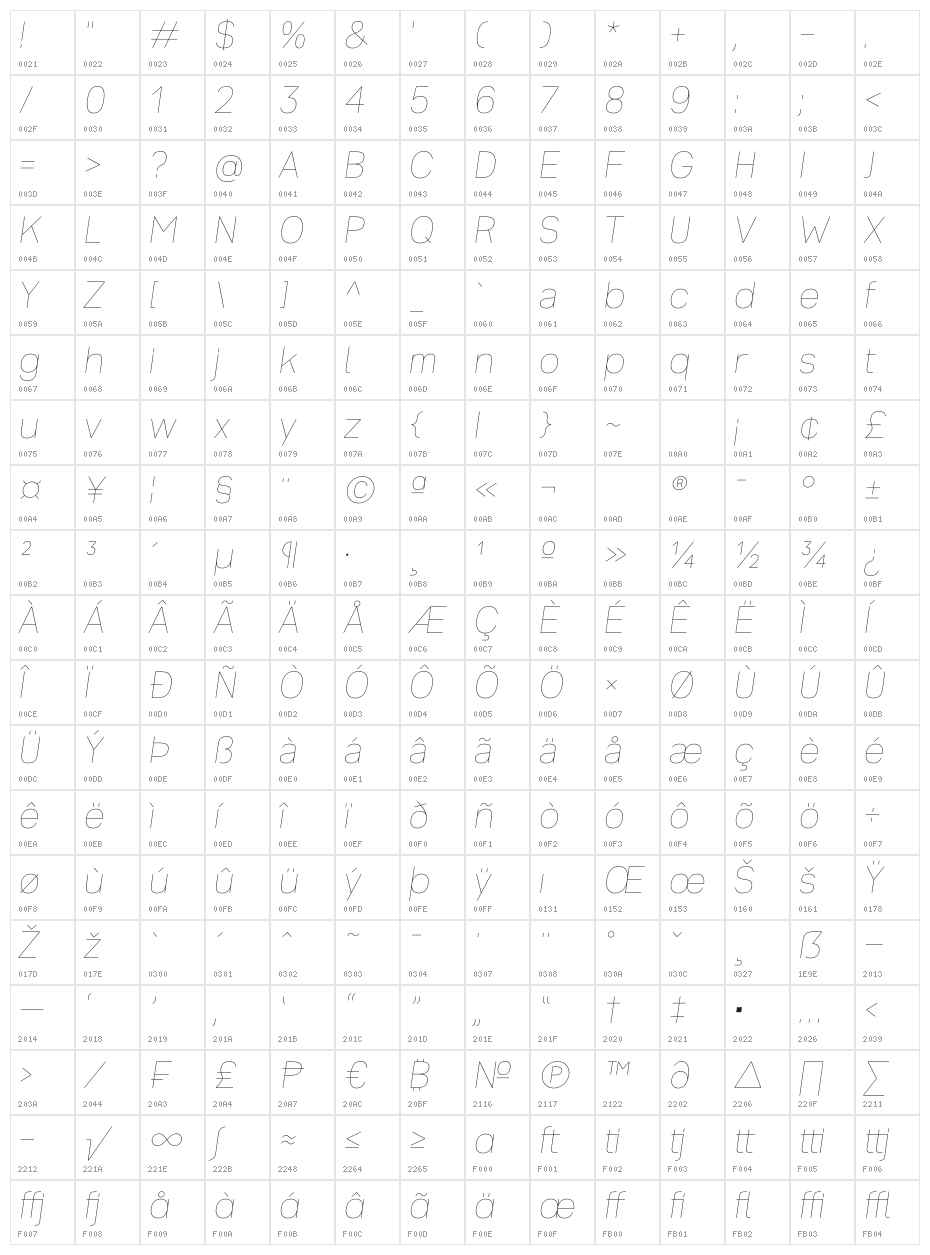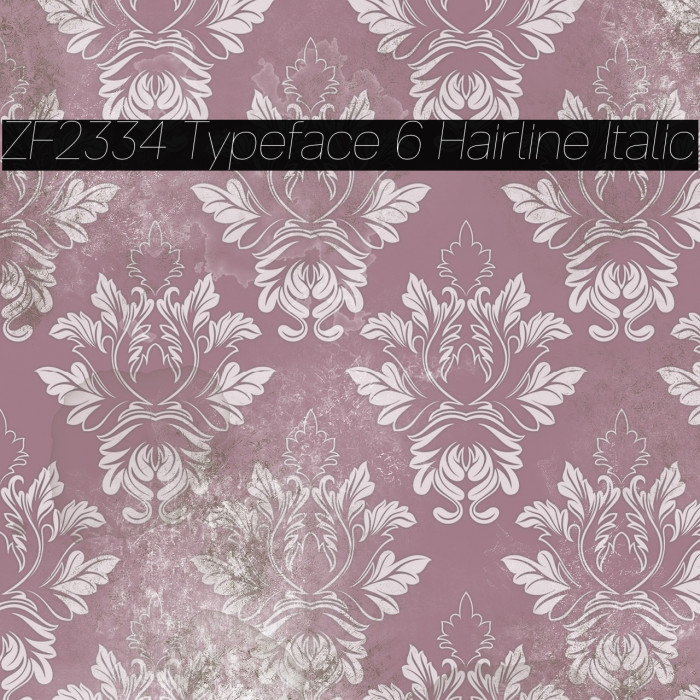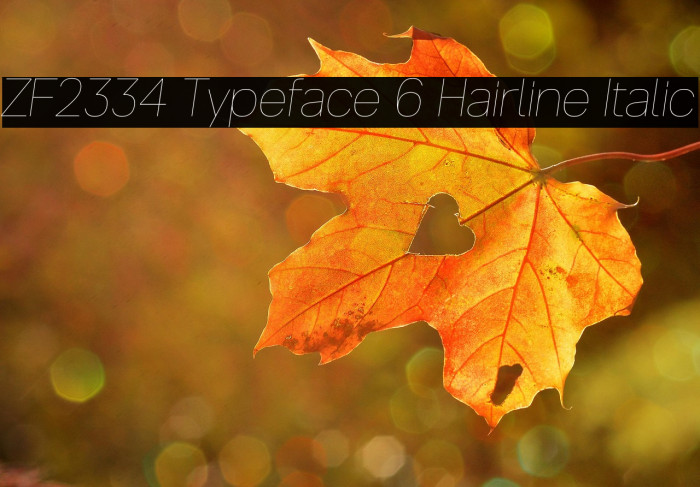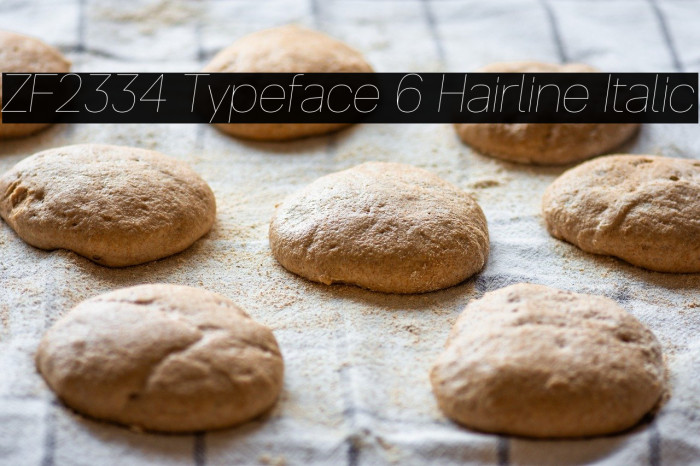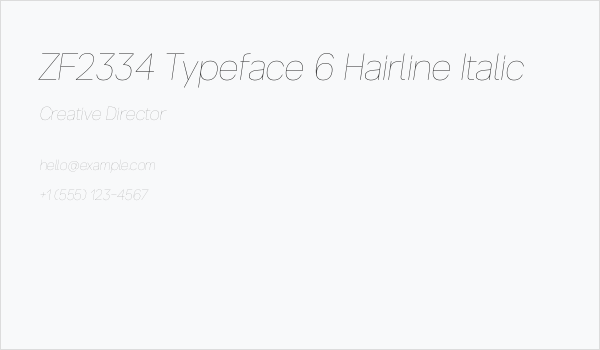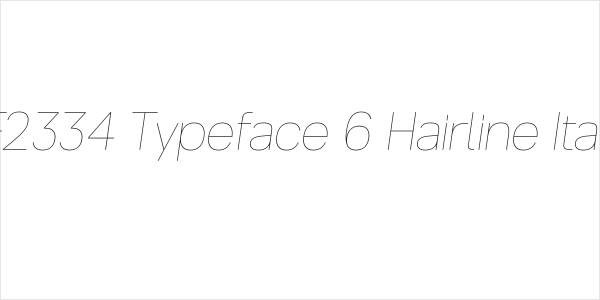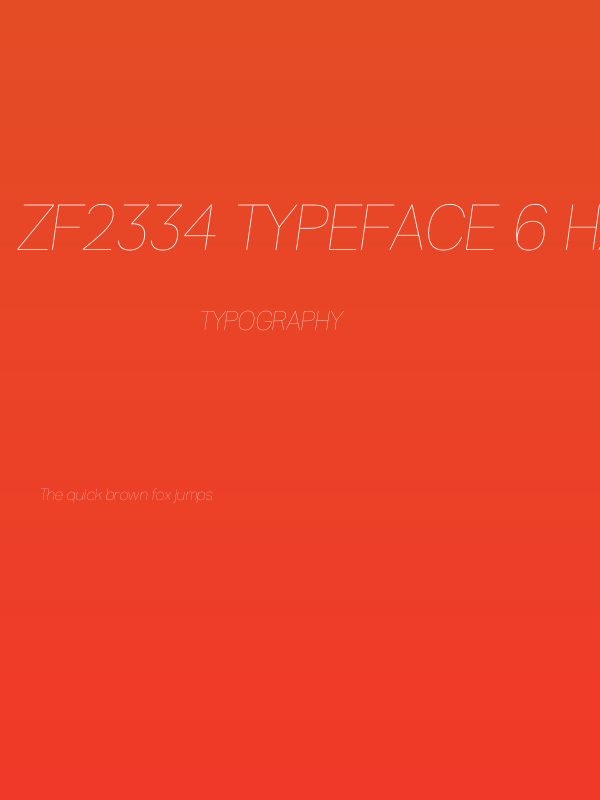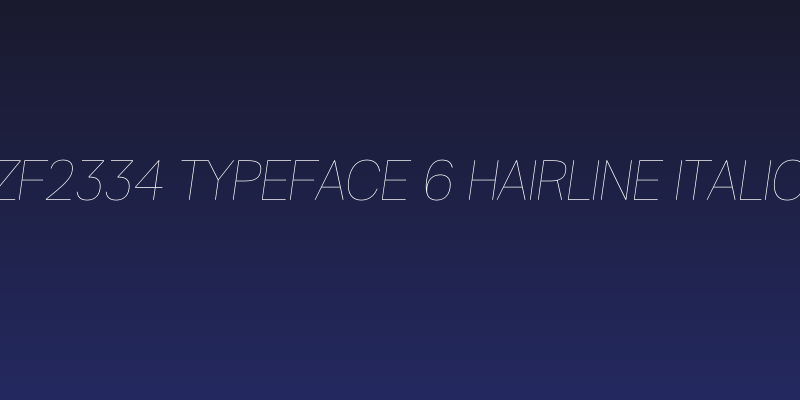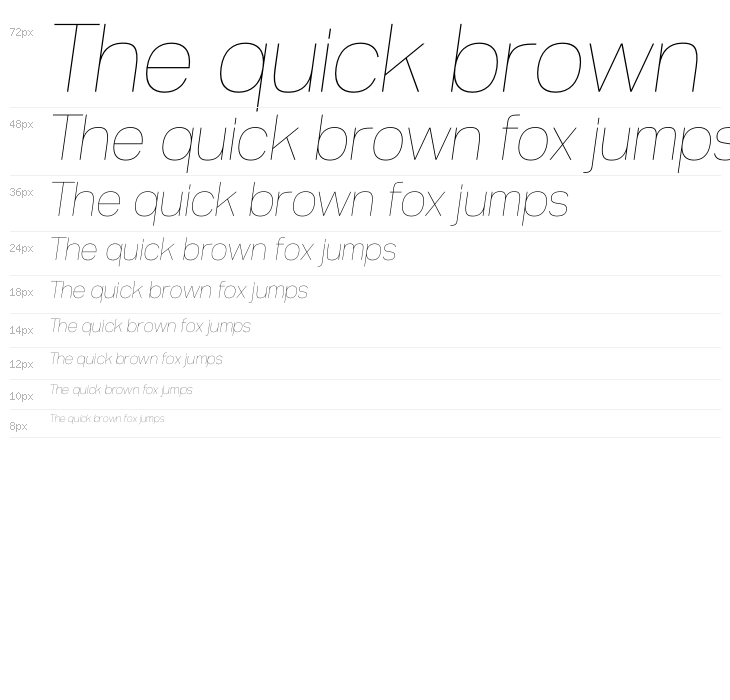
ZF2334 Typeface 6 Hairline Italic Font
ZF2334 Typeface 6 Hairline Italic Description
This typeface is characterized by its extremely thin and delicate strokes, giving it a refined and elegant appearance. The letters are slightly slanted, adding a touch of dynamism and sophistication. The overall design is minimalist, with a focus on clean lines and a modern aesthetic. The characters are well-proportioned, maintaining a consistent flow across both uppercase and lowercase letters. The numerals and special characters are designed to complement the alphabet, ensuring a cohesive look throughout. This font is ideal for projects that require a subtle yet stylish touch.
| Proposed Projects | Ideal for luxury branding, high-end fashion magazines, elegant invitations, and minimalist design projects. |